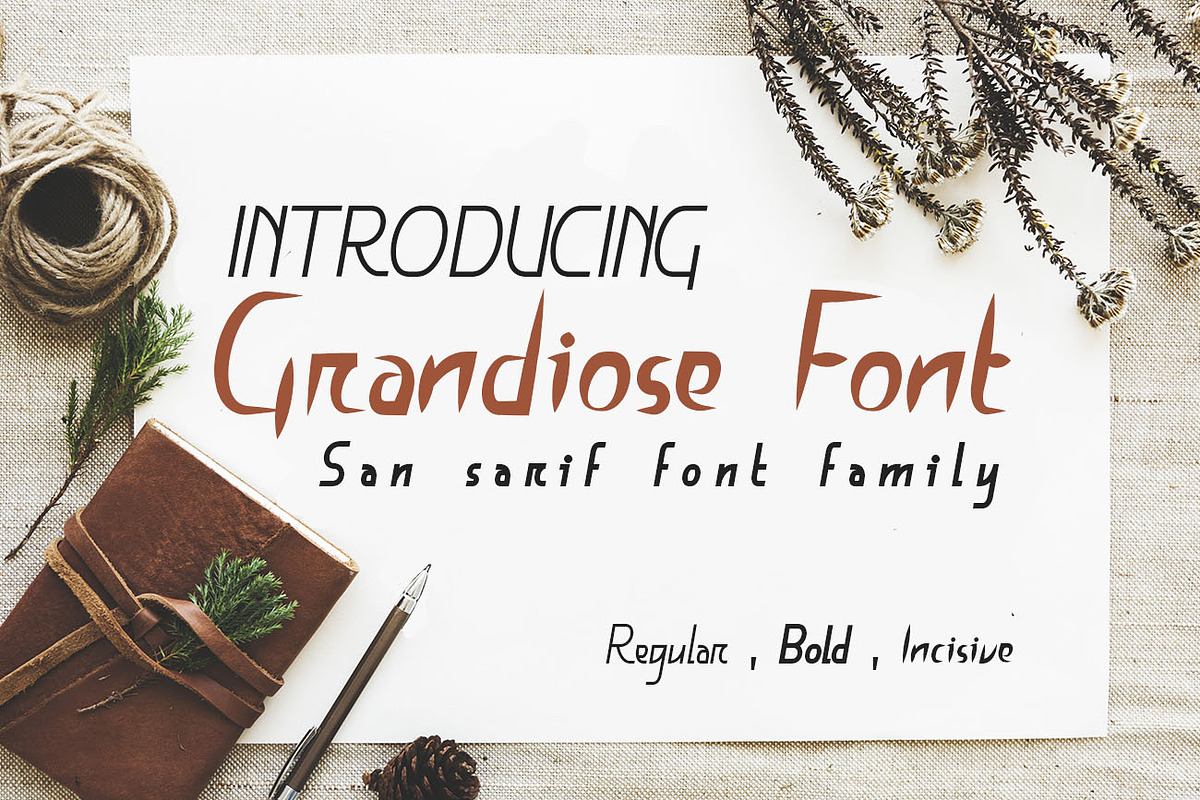
Grandiose Font is a stunning, elegant typeface designed to make a statement in any design. With its bold and sophisticated look, it’s perfect for high-end branding, editorial layouts, and luxury marketing materials. Download Grandiose Font Free Download today and elevate your creative projects!